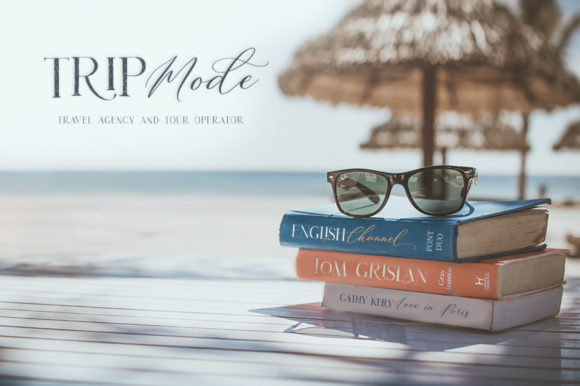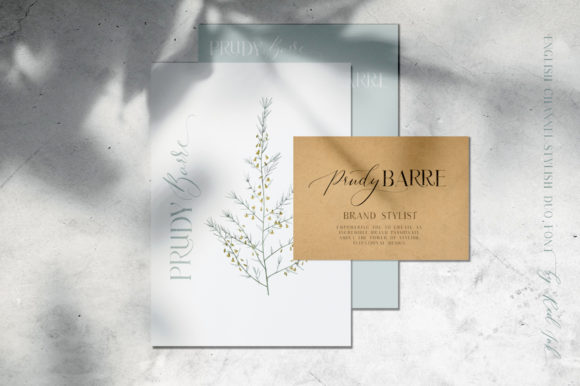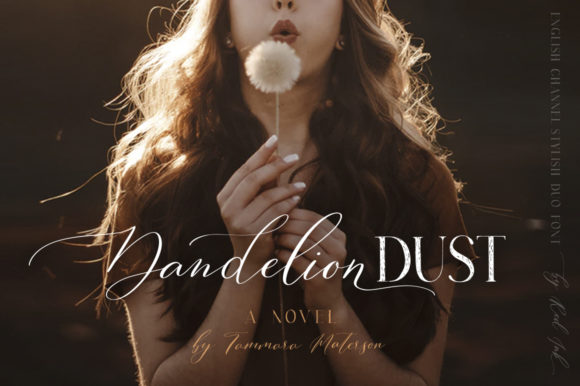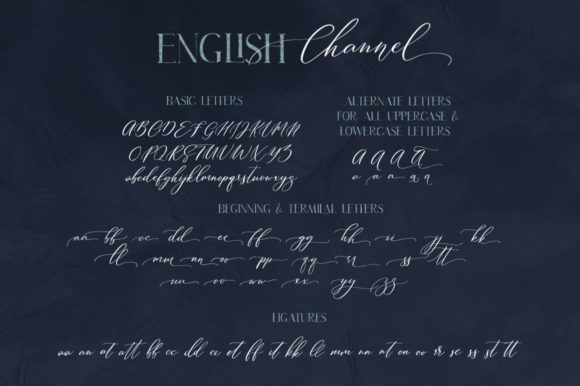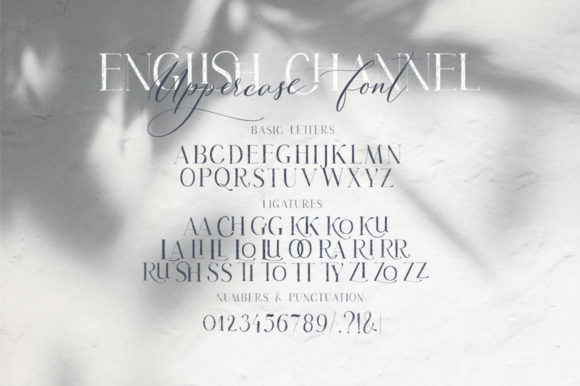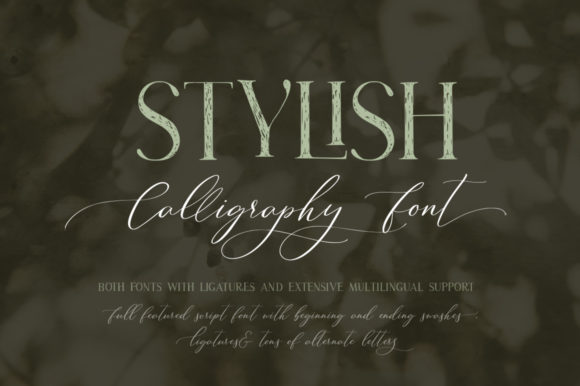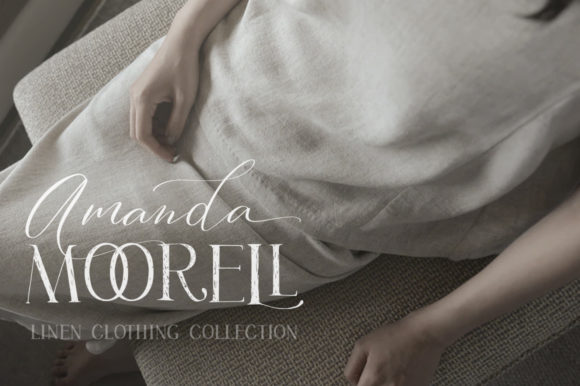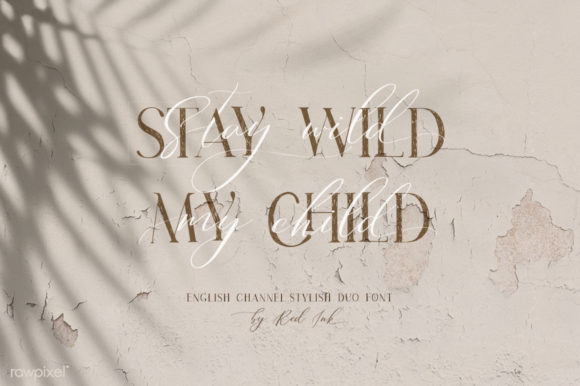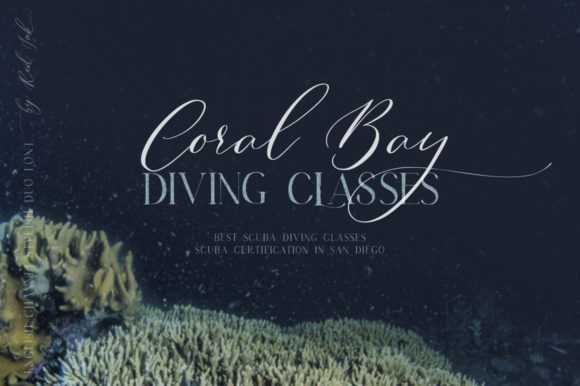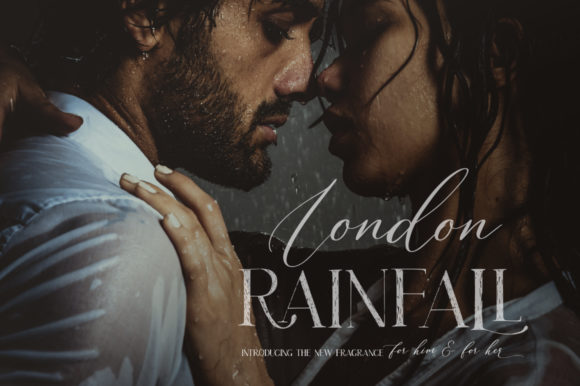
English Channel Duo Font
About English Channel Duo Font
English Channel duo is a match made in heaven, the gorgeous curves of its script perfectly complement the serif font’s style. Combining these two fonts on your next design will give it a sophisticated and fancy feel.
This versatility means that this font can be used in a wide variety of applications, ranging from titles, greeting cards, to product packaging- the only limit is your imagination!